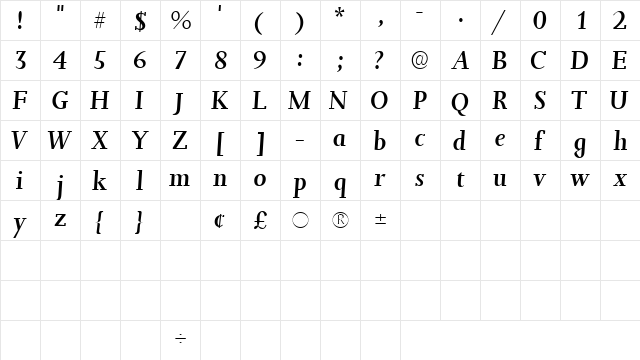
JuxtaSSK Italic
Design Context for JuxtaSSK Typeface
JuxtaSSK takes a measured approach to typography — its balanced proportions and neutral character make it a reliable workhorse for both digital and print work. The dynamic lean of this cut emphasises speed and emphasis in any layout.
Pro Tip: Try JuxtaSSK for annotation and caption copy alongside an upright companion — the contrast in angle creates a dynamic but ordered typographic system.